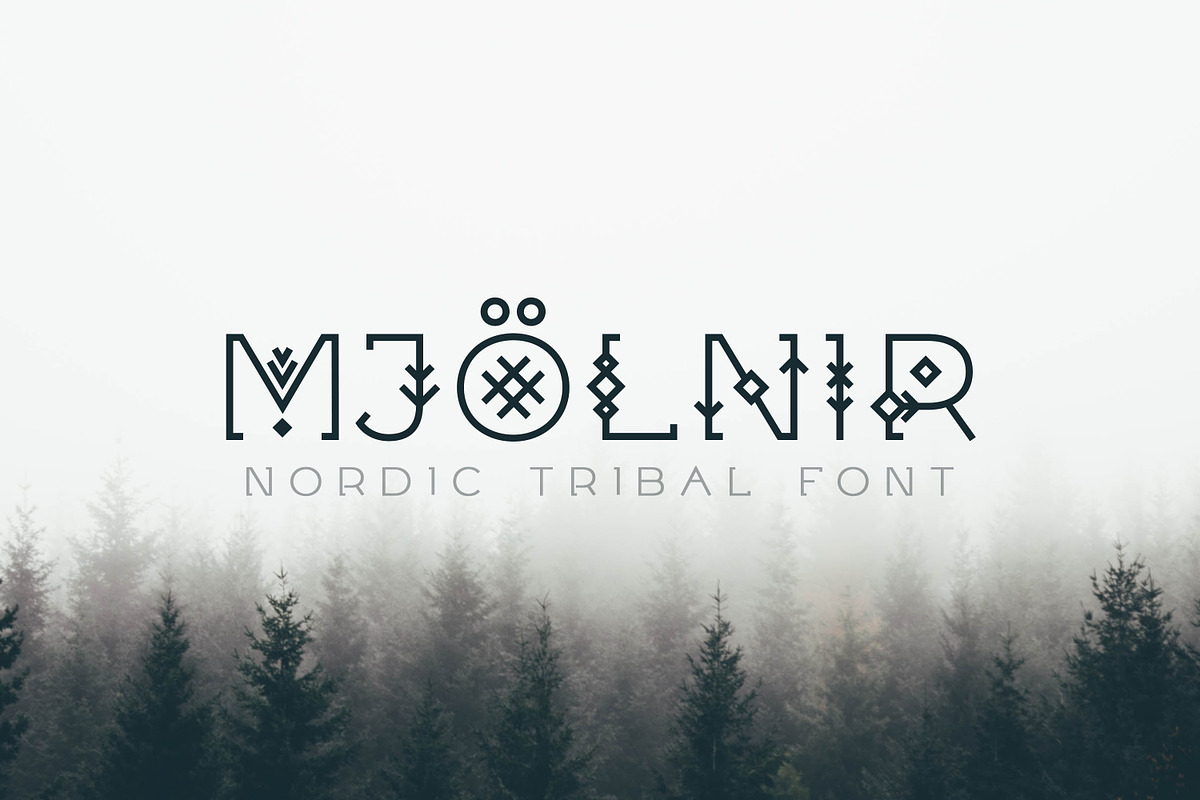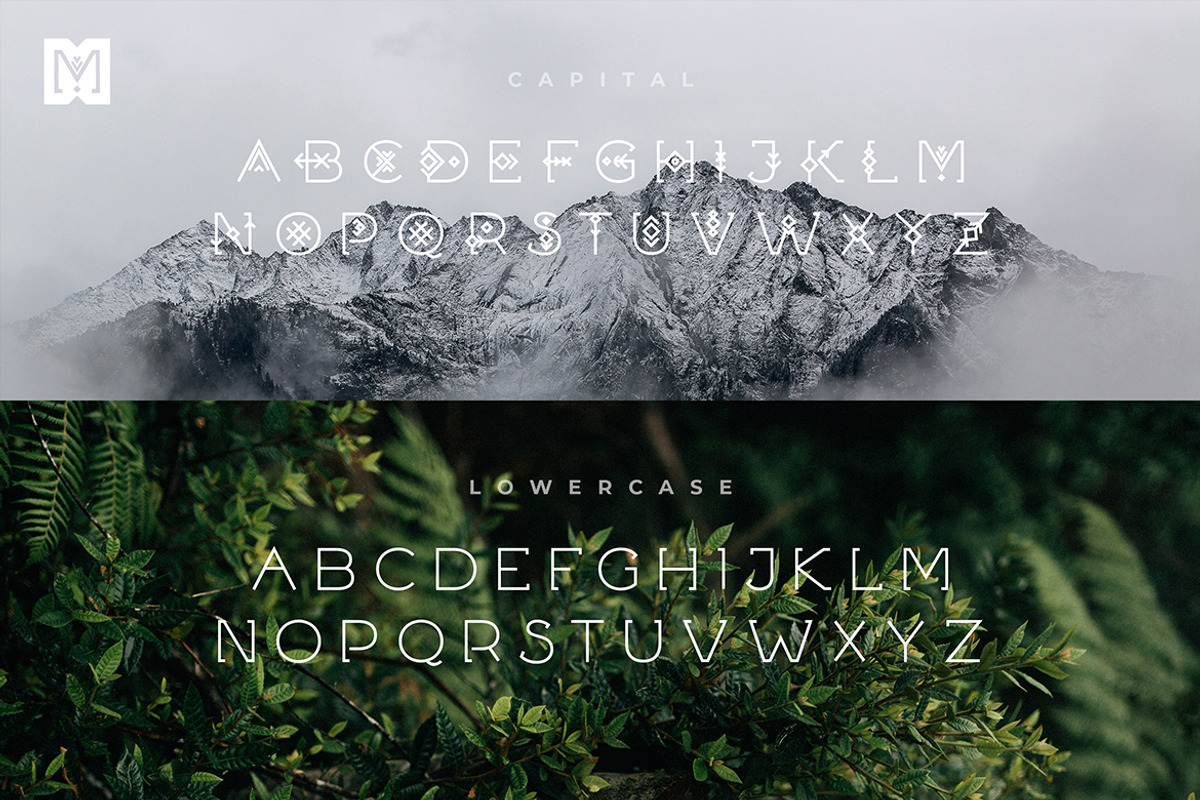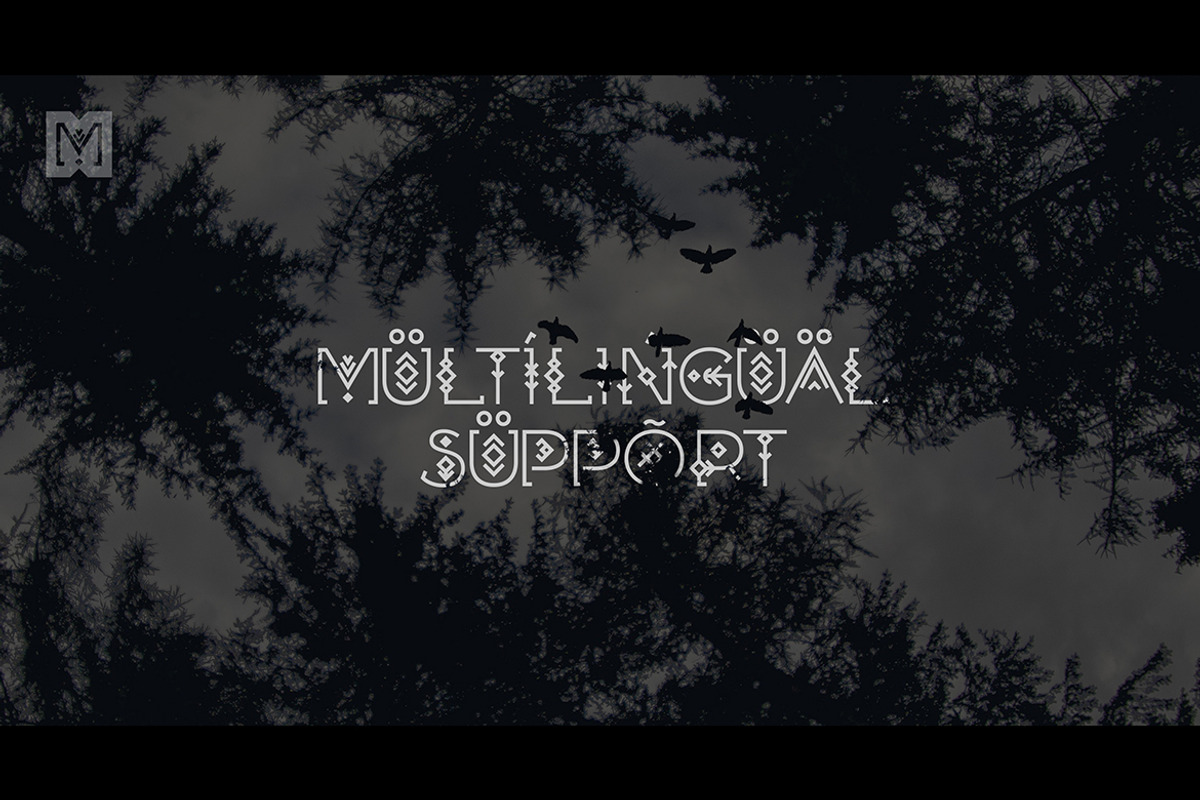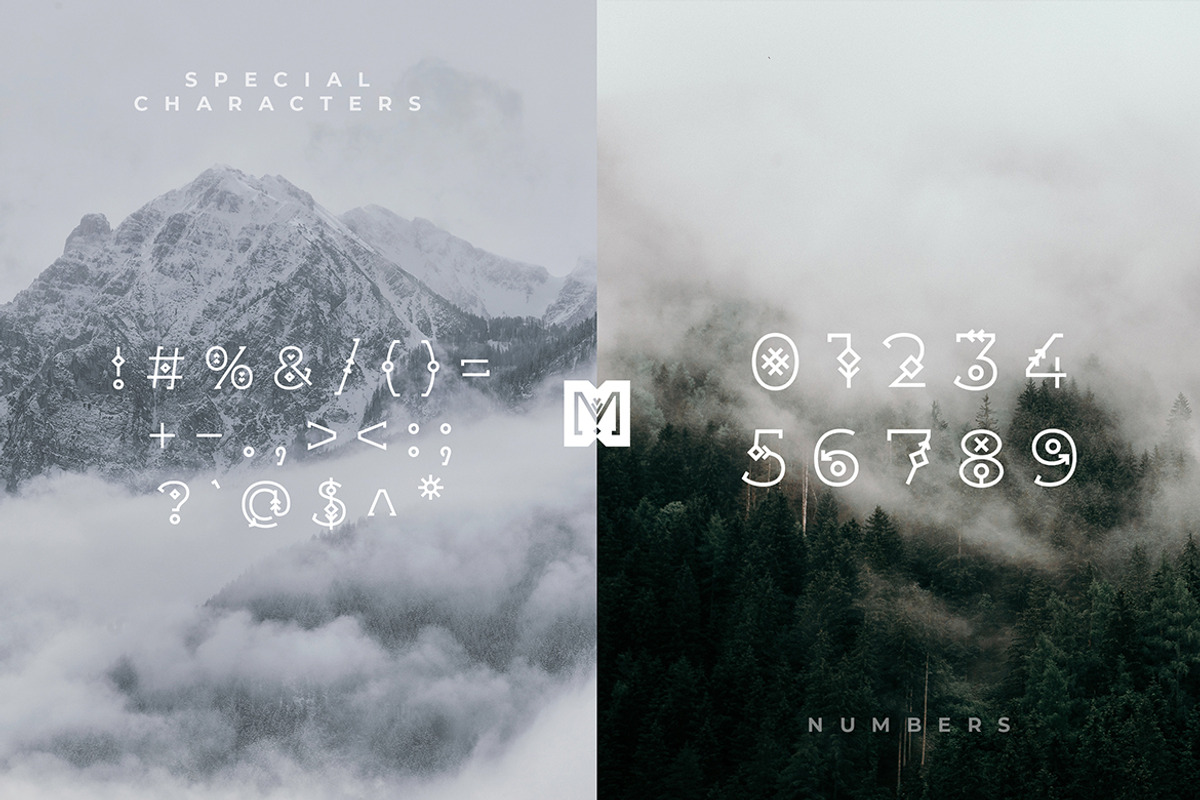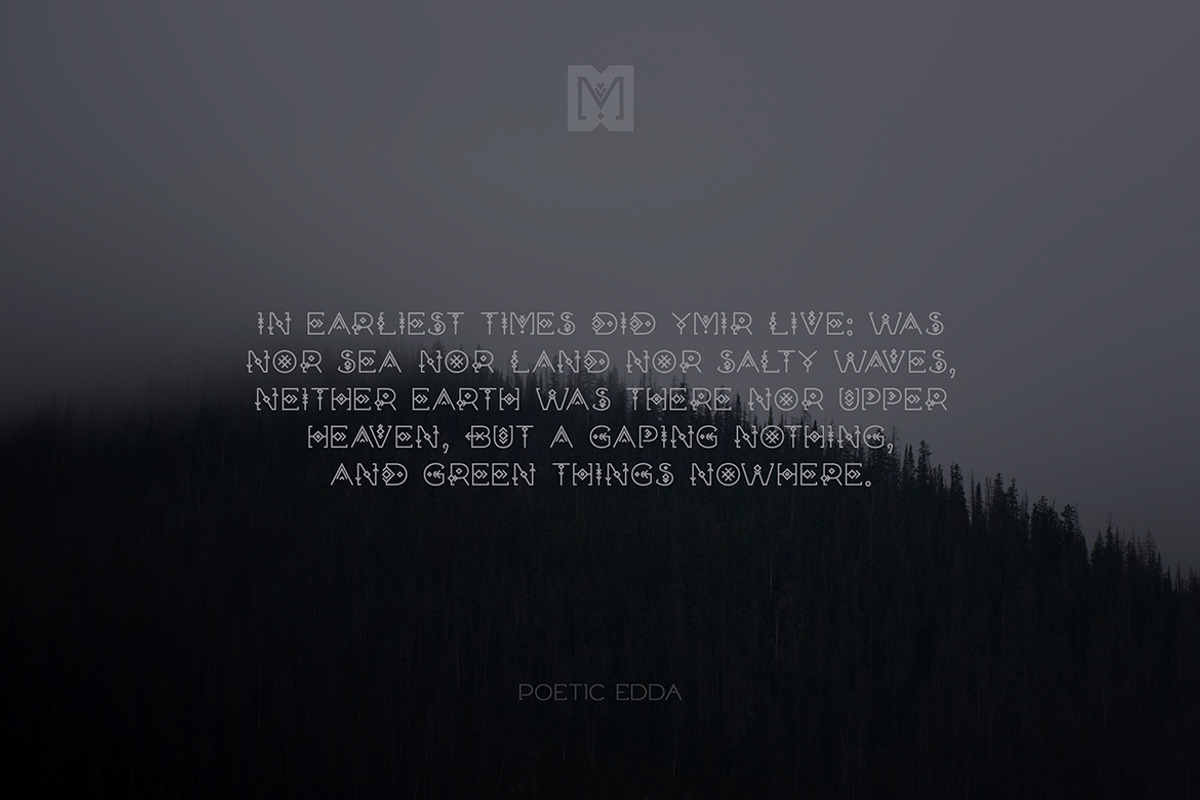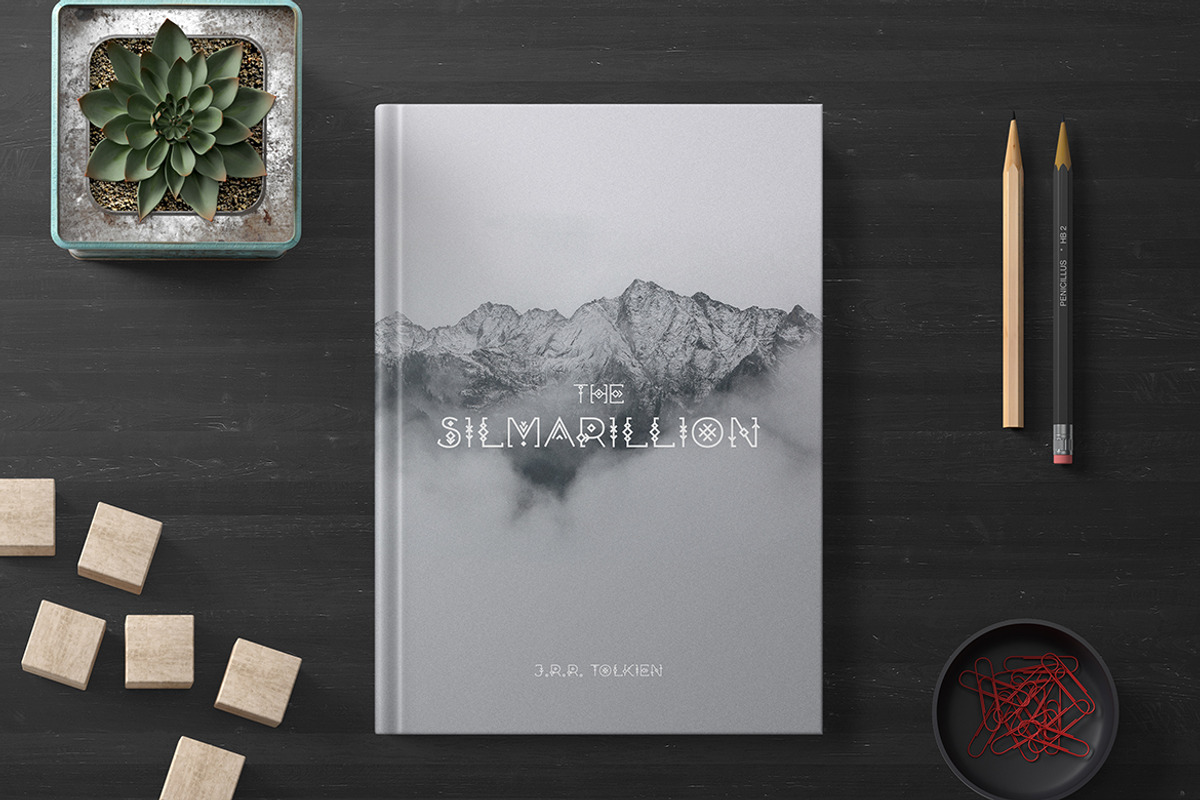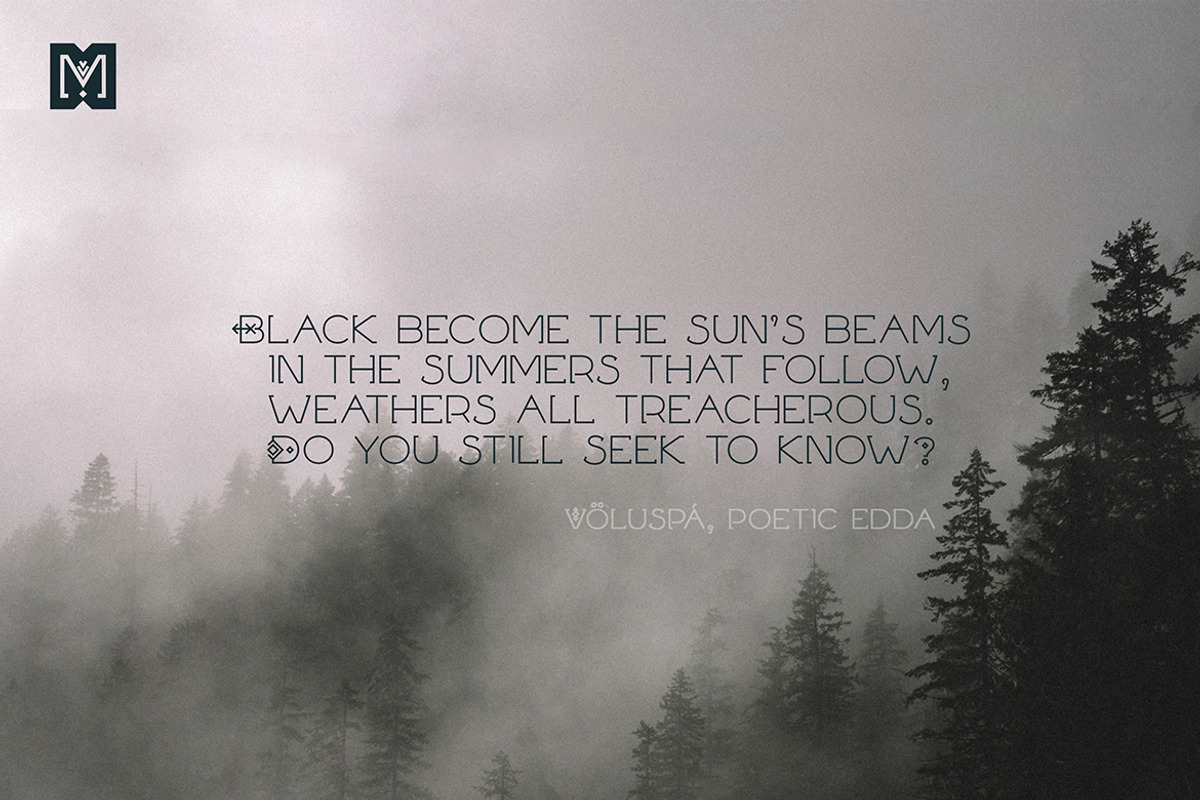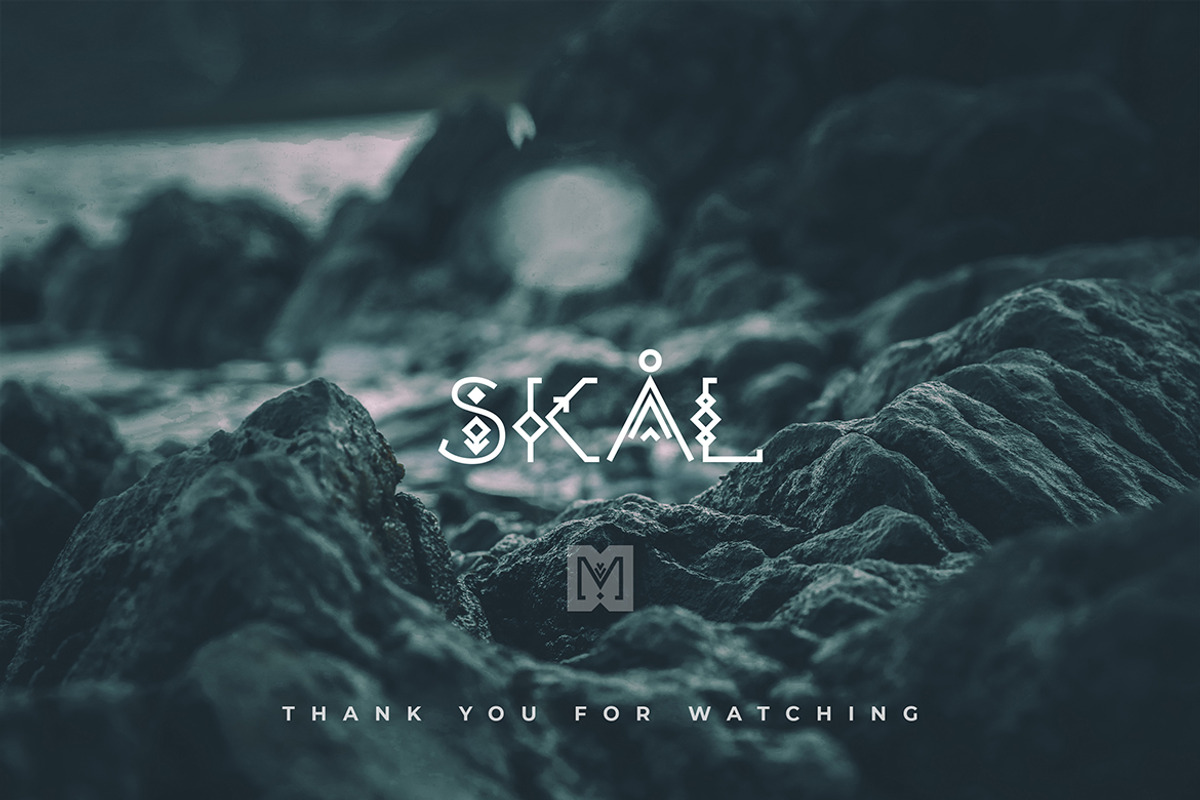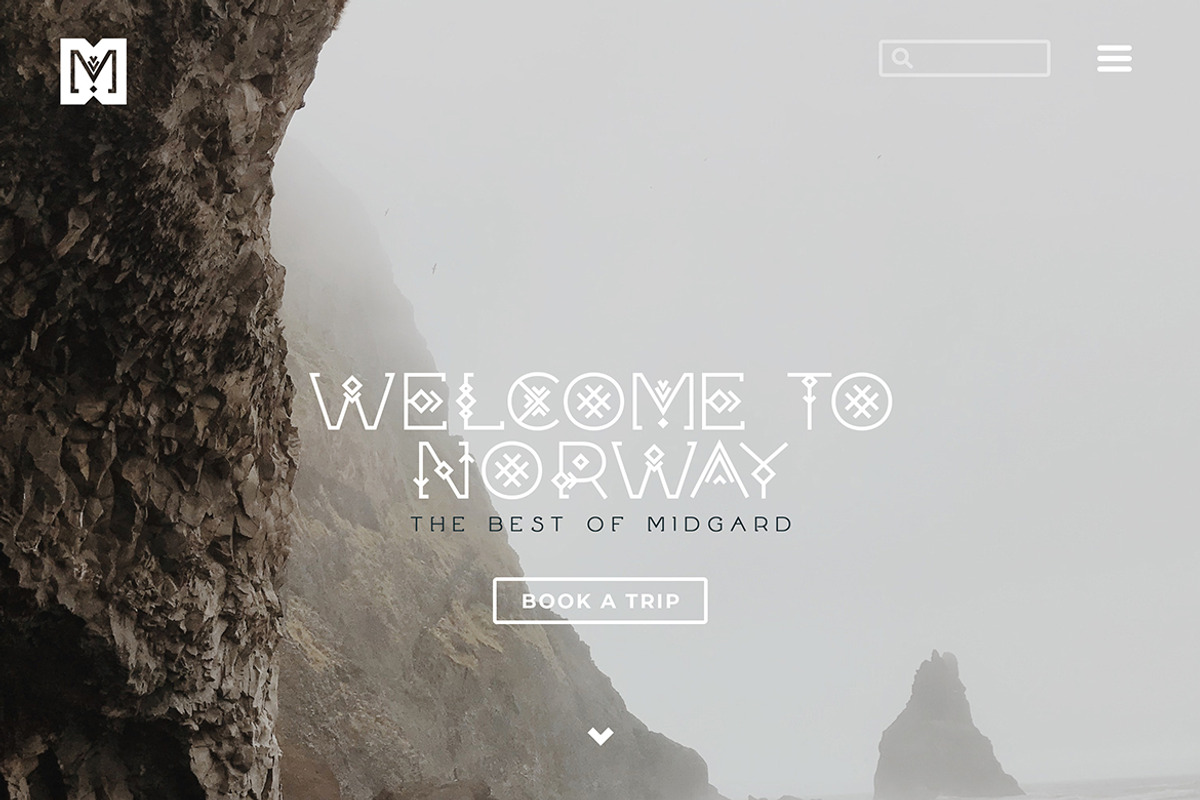
Mjölnir - Nordic Tribal Font
Introducing Mjölnir, a powerful and evocative font that channels the raw energy and mystique of the Viking era. Named after the legendary hammer of Thor, this font is forged with a deep respect for the ancient runes that once told tales of gods and warriors across the Norse lands.
Mjölnir combines the rugged aesthetics of traditional rune symbols with the legibility and functionality of modern typeface design. Each character in this font is carefully crafted to echo the angular and geometric shapes typical of runic alphabets, while ensuring clarity and readability for contemporary use.
Perfect for thematic game titles, historical publications, and branding projects that aim to invoke strength and tradition, Mjölnir is not just a font but a homage to the storied past of the Viking age.
This tribal font is meant to be used for headlines, titles, logos, posters, flyers, etc - anything that requires a unique geometric typeface with the tribal motif.
The font has uppercase and lowercase characters, special glyphs, and multilingual support.